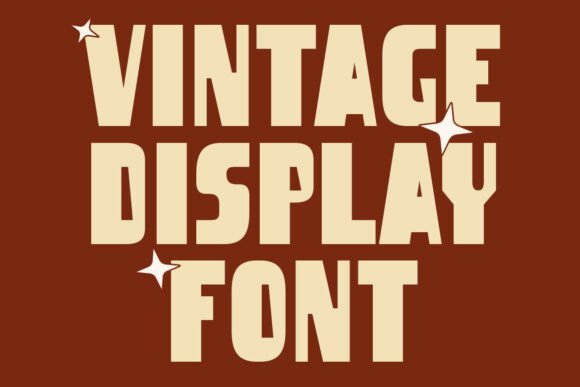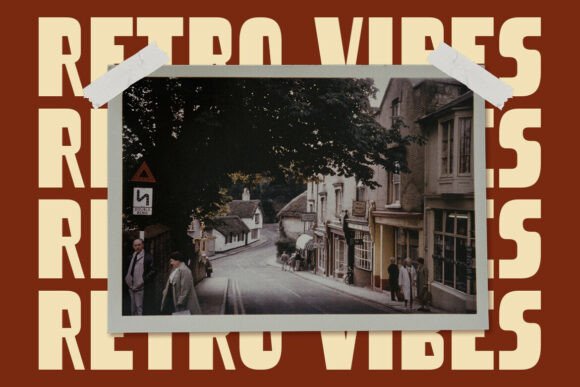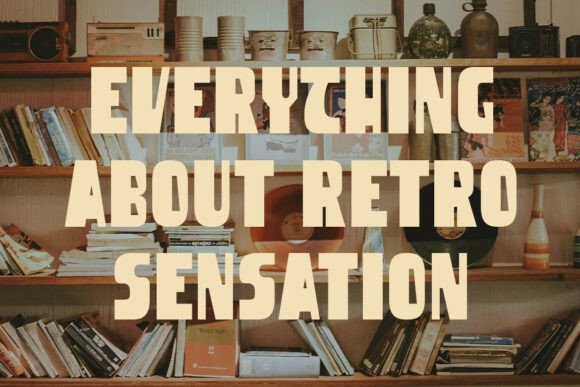
Introduction to Nachis Font
Nachis is a bold retro sans display font that captures the spirit of vintage signage, classic diner menus, and old-school packaging with a fresh, modern twist.
Its blocky letterforms, dramatic verticals, and tightly spaced design evoke a strong presence—perfect for headlines, posters, branding, product labels, and nostalgic-themed graphics What makes Nachis stand out is its unique single-case structure—delivering all the punch of uppercase lettering with a subtle touch of playful character.
Key Features of Nachis Font
Why Choose Nachis Font?
Nachis Font offers exceptional quality and versatility, making it a valuable addition to your design toolkit. Whether you’re creating for personal projects or commercial use, Nachis Font delivers professional results.